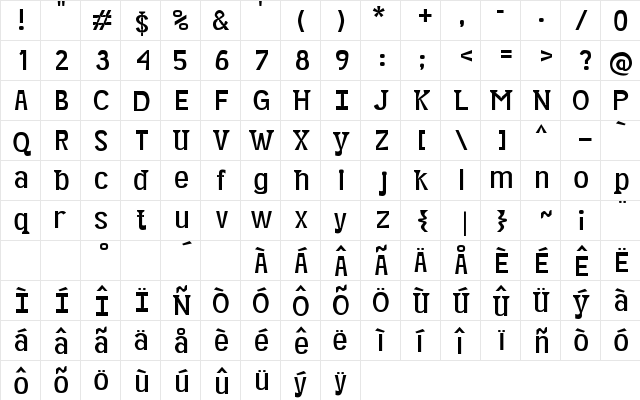
Minikin Medium
Design Context for Minikin Typeface
Minikin takes a measured approach to typography — its balanced proportions and neutral character make it a reliable workhorse for both digital and print work.
Pro Tip: Pair Minikin with a font of contrasting weight or personality to build a more expressive typographic hierarchy.